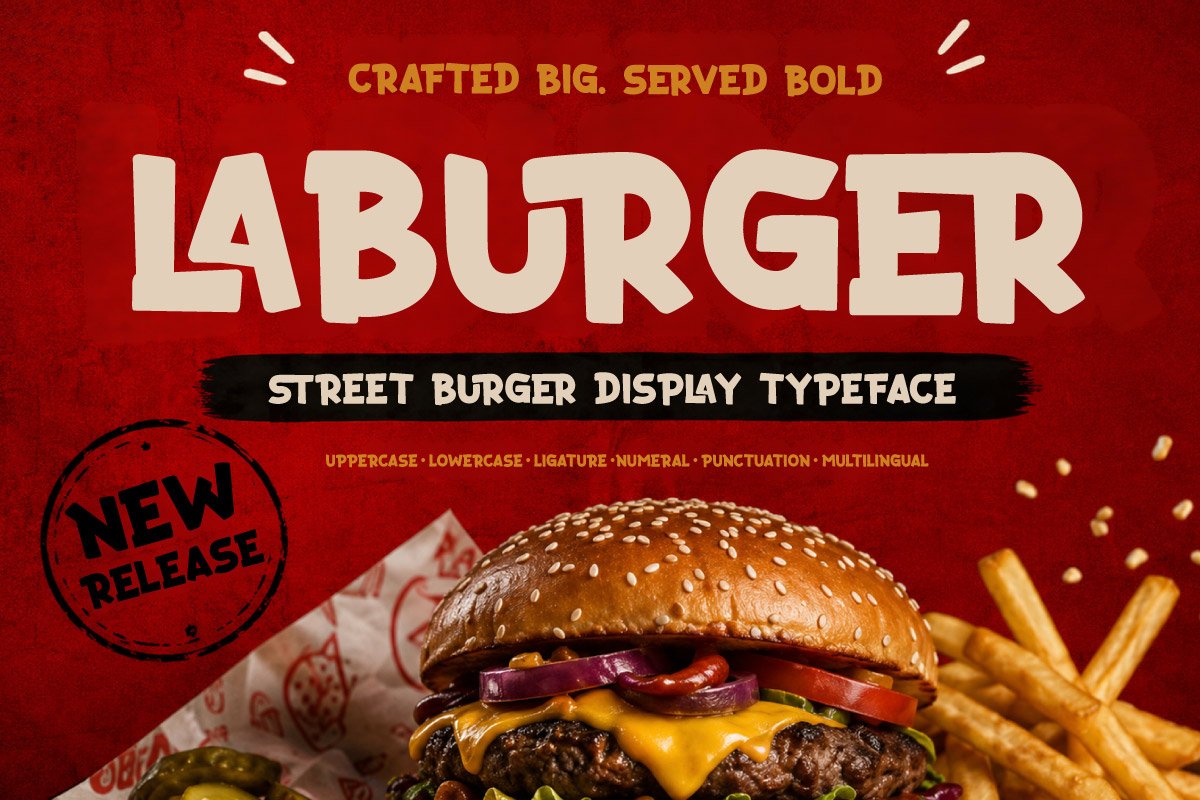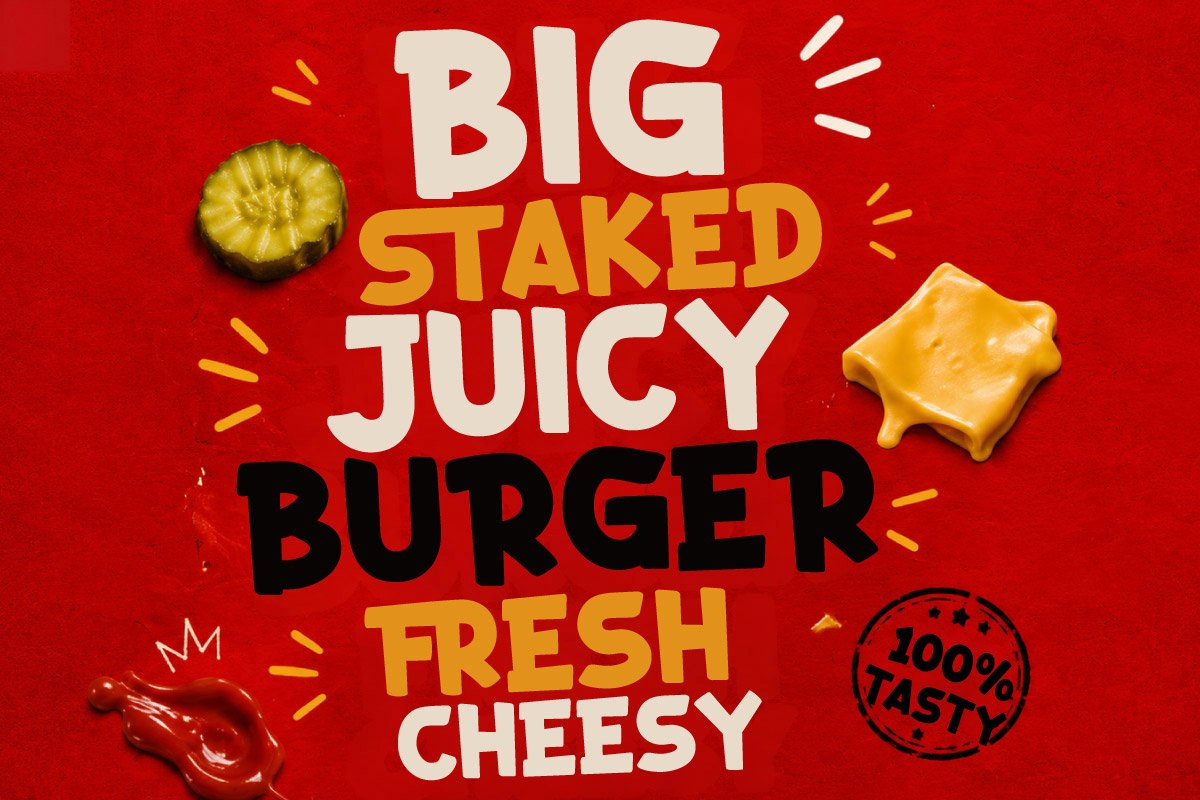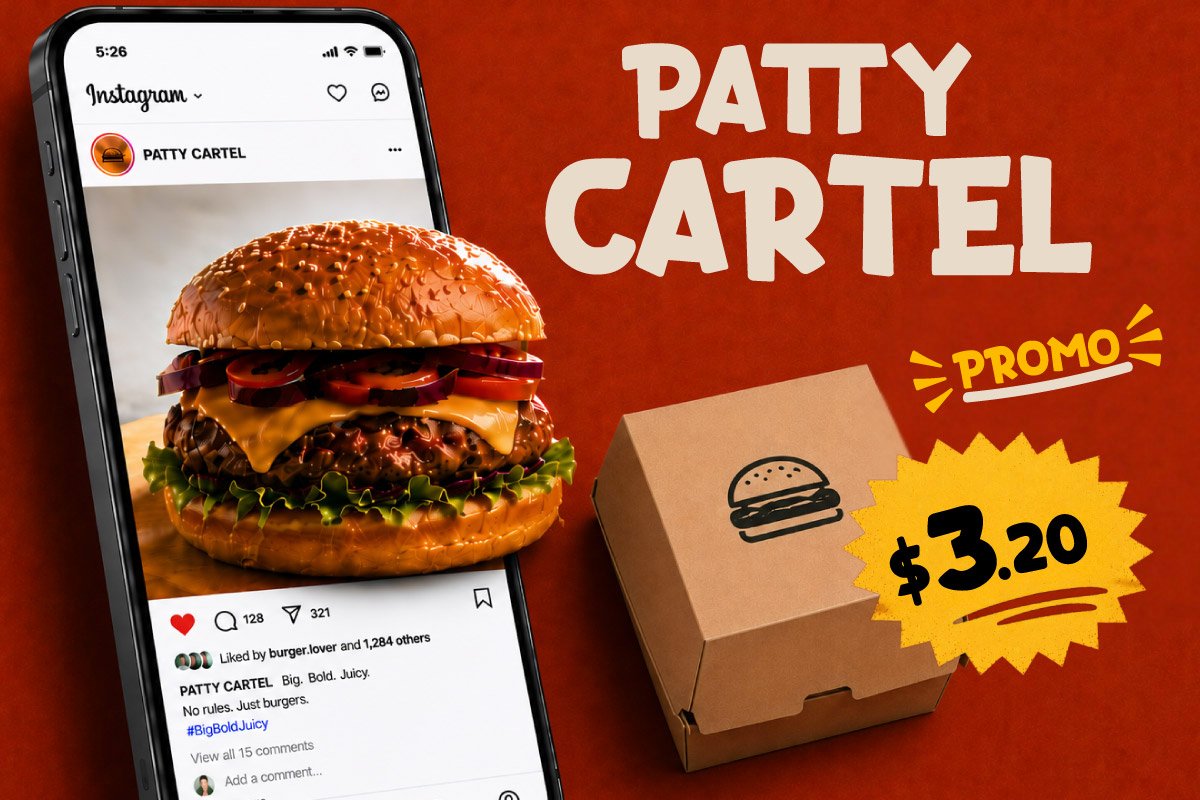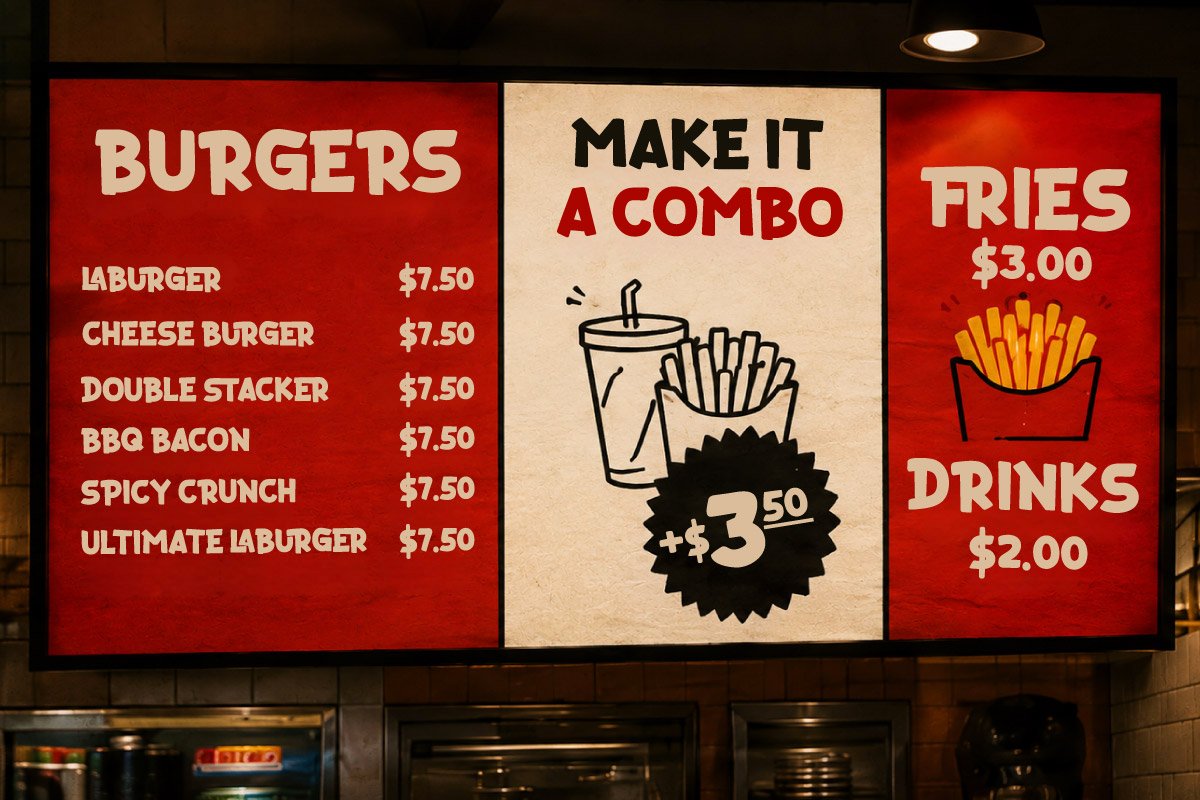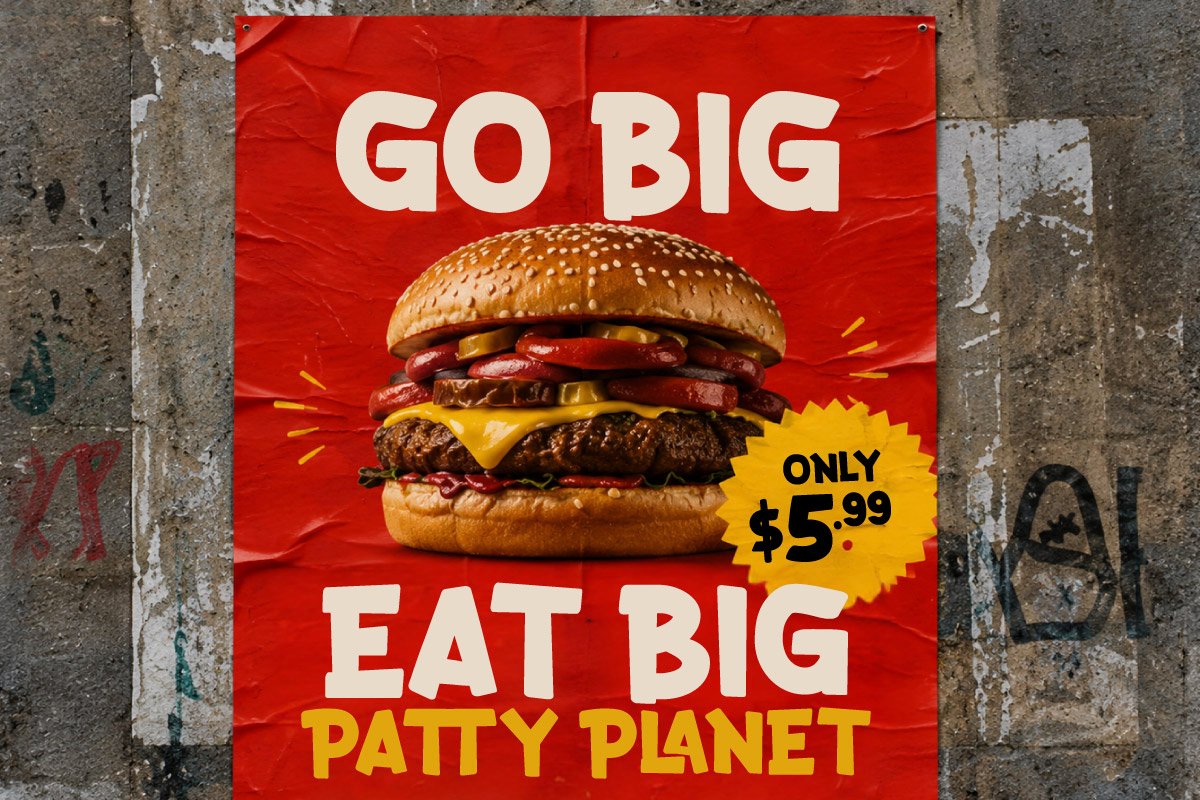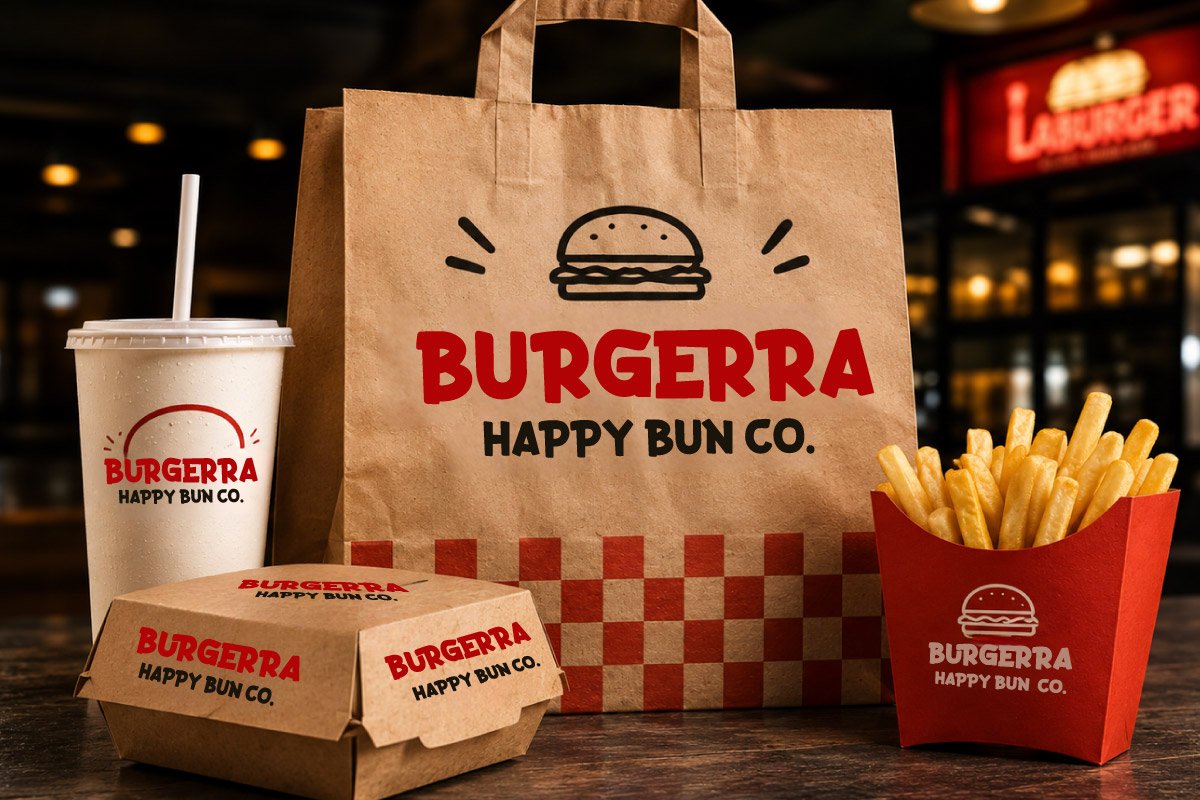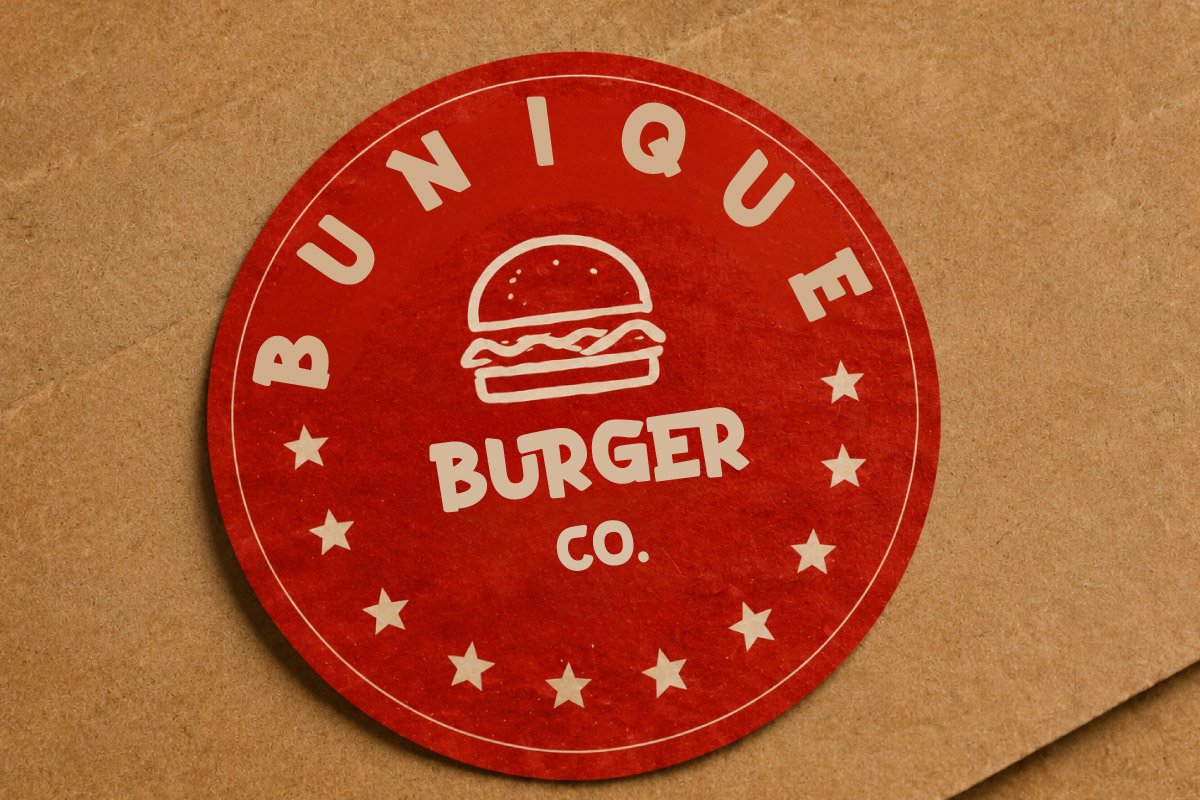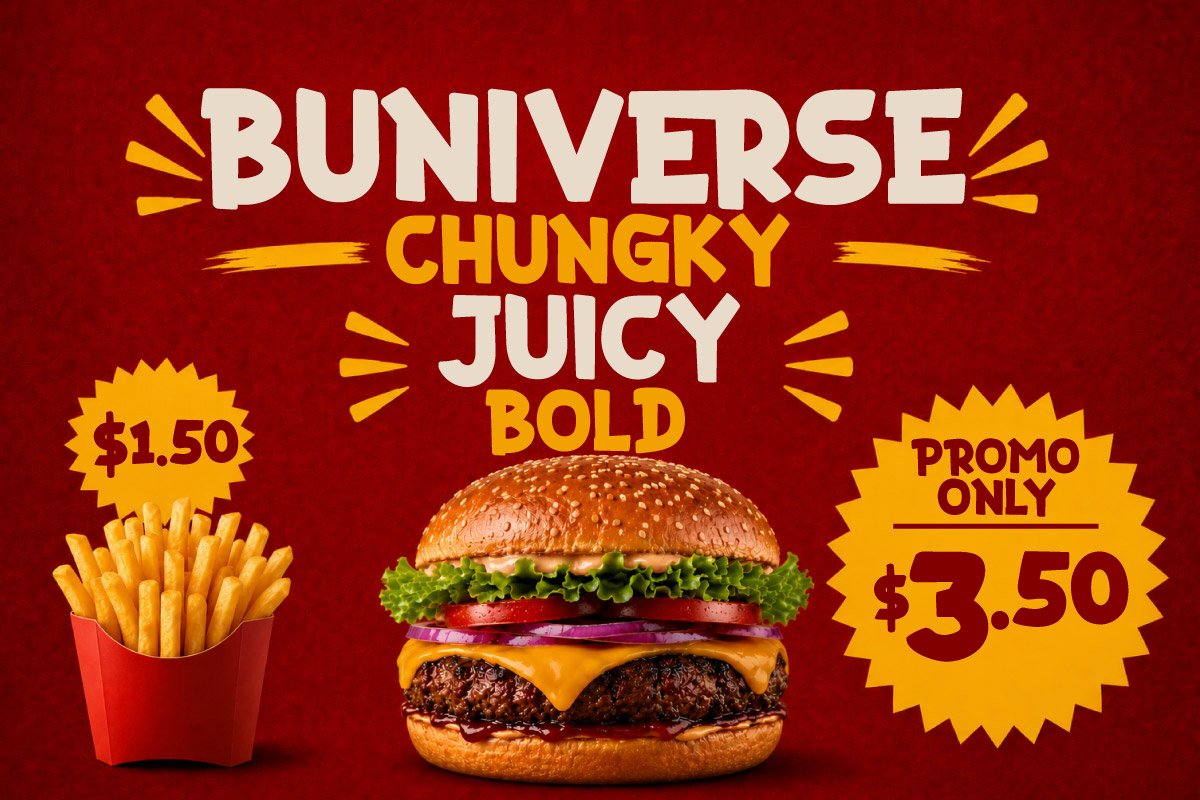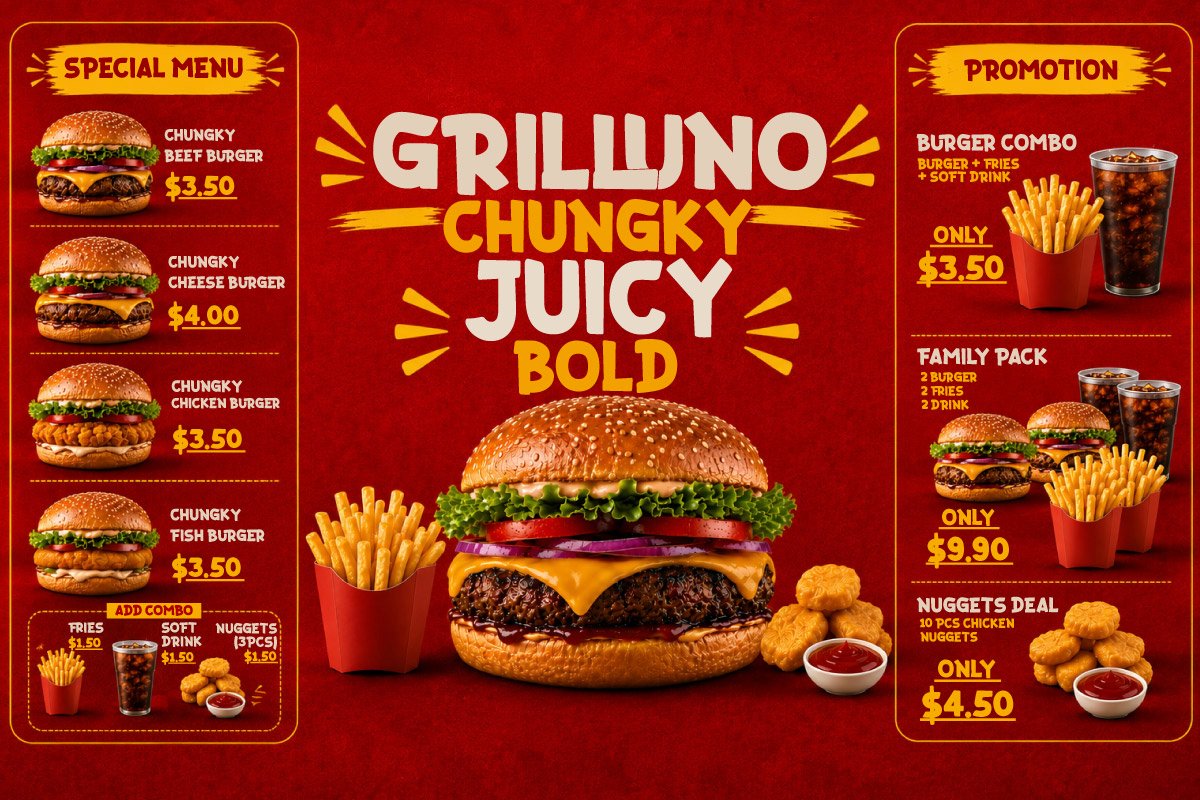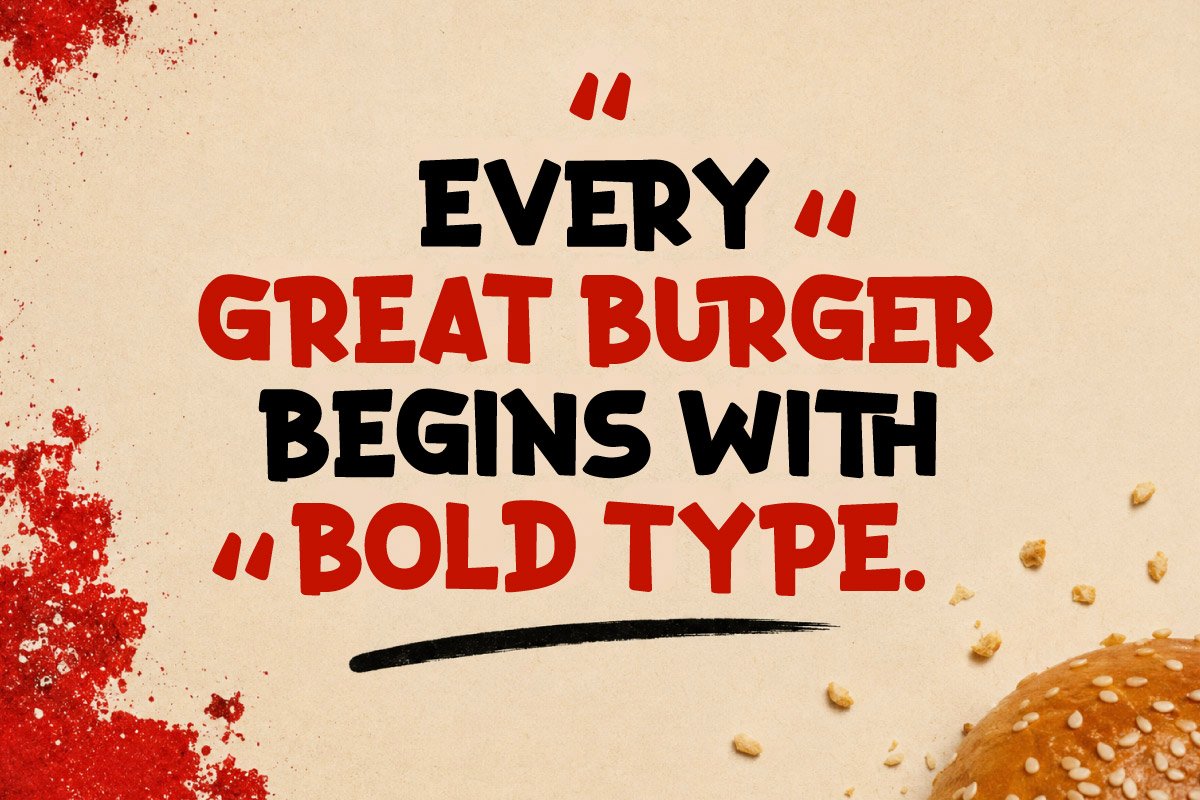
Laburger – Burger Display Font
Laburger is a bold display font inspired by the vibrant world of burgers, street food, and modern culinary branding. Its chunky letterforms and playful personality create an eye-catching appearance that instantly grabs attention, making it perfect for impactful headlines and memorable food branding.
Designed to maximize visual appeal, Laburger works beautifully for burger restaurant logos, fast food brands, café identities, food packaging, menu designs, promotional posters, advertising campaigns, social media graphics, merchandise, and other creative projects that require a bold and friendly display typeface.
Combining modern style with a fun and approachable look, Laburger helps designers and business owners create strong visual identities that stand out in a competitive market. Whether you’re building a new food brand or refreshing an existing one, this font delivers a deliciously bold impression.